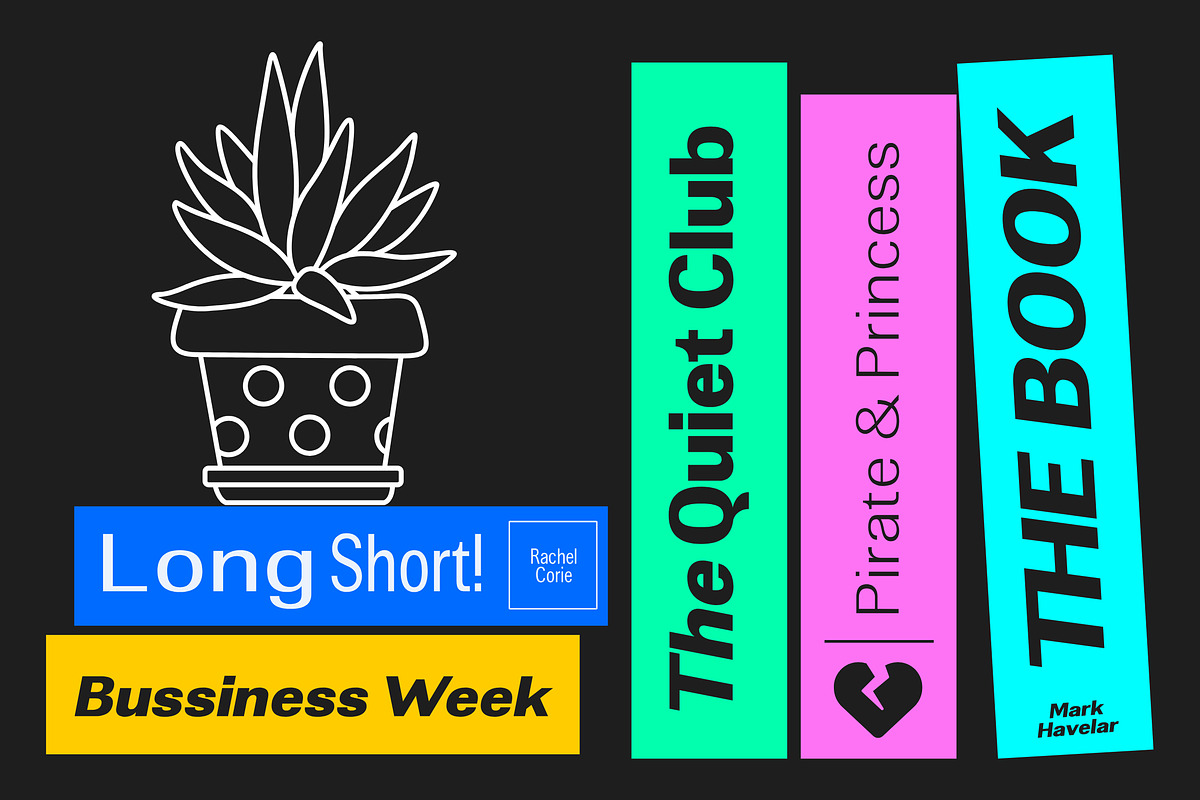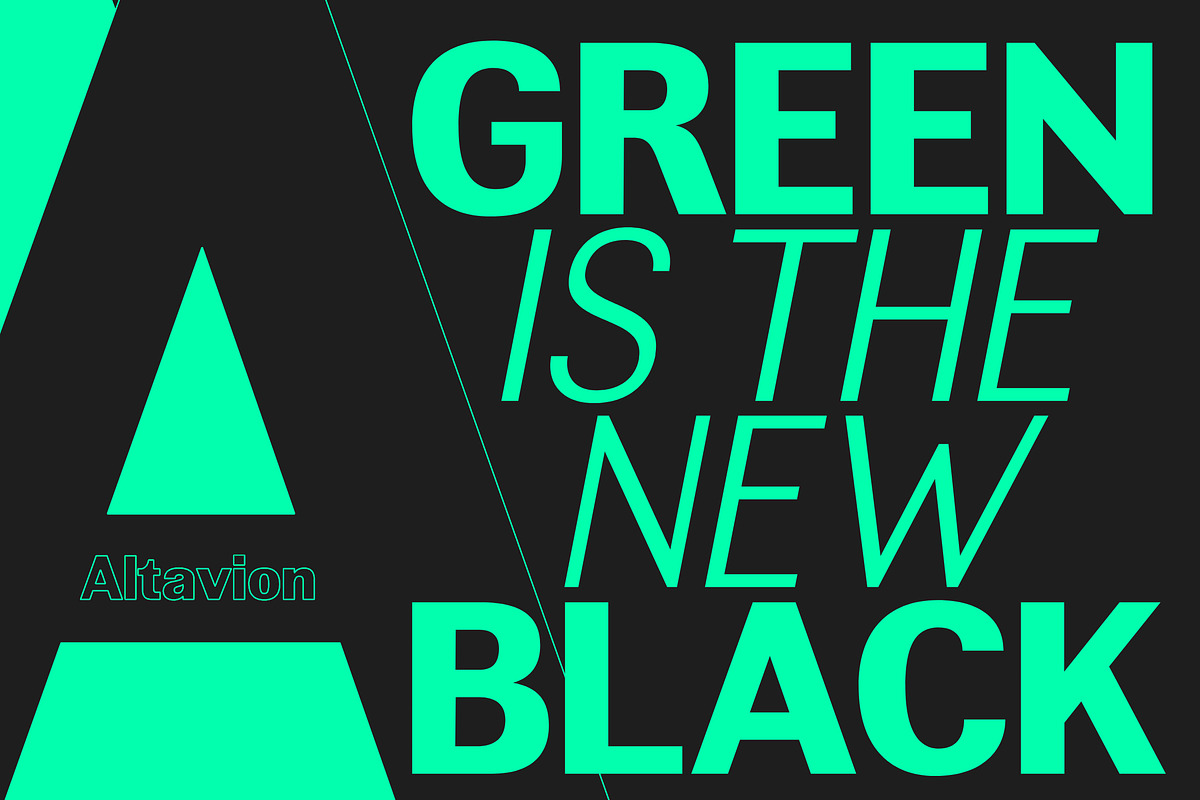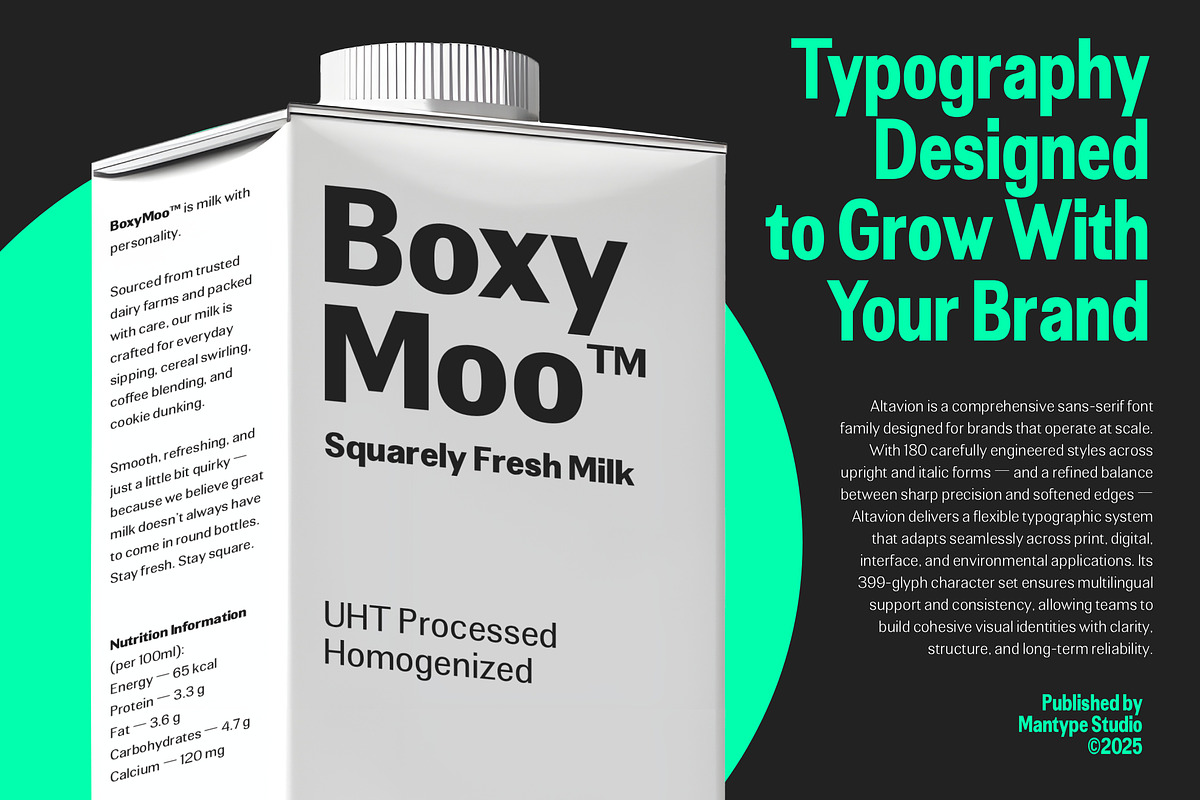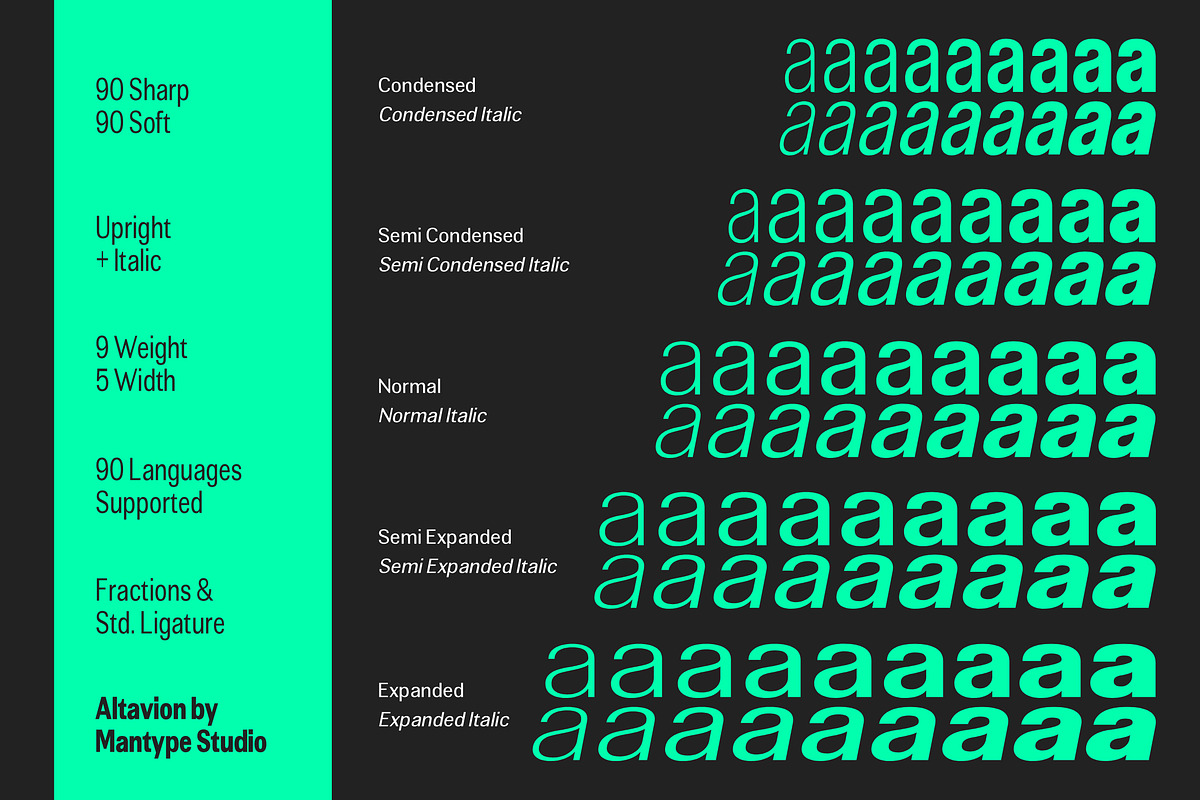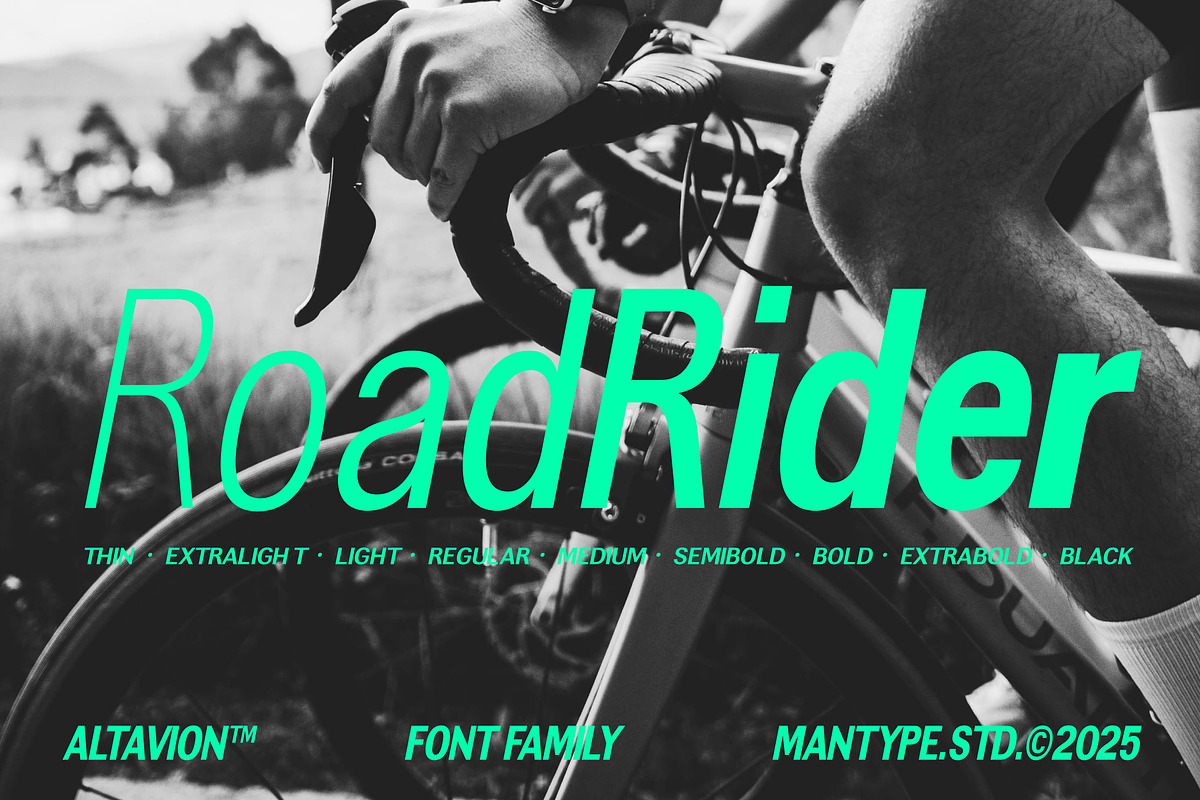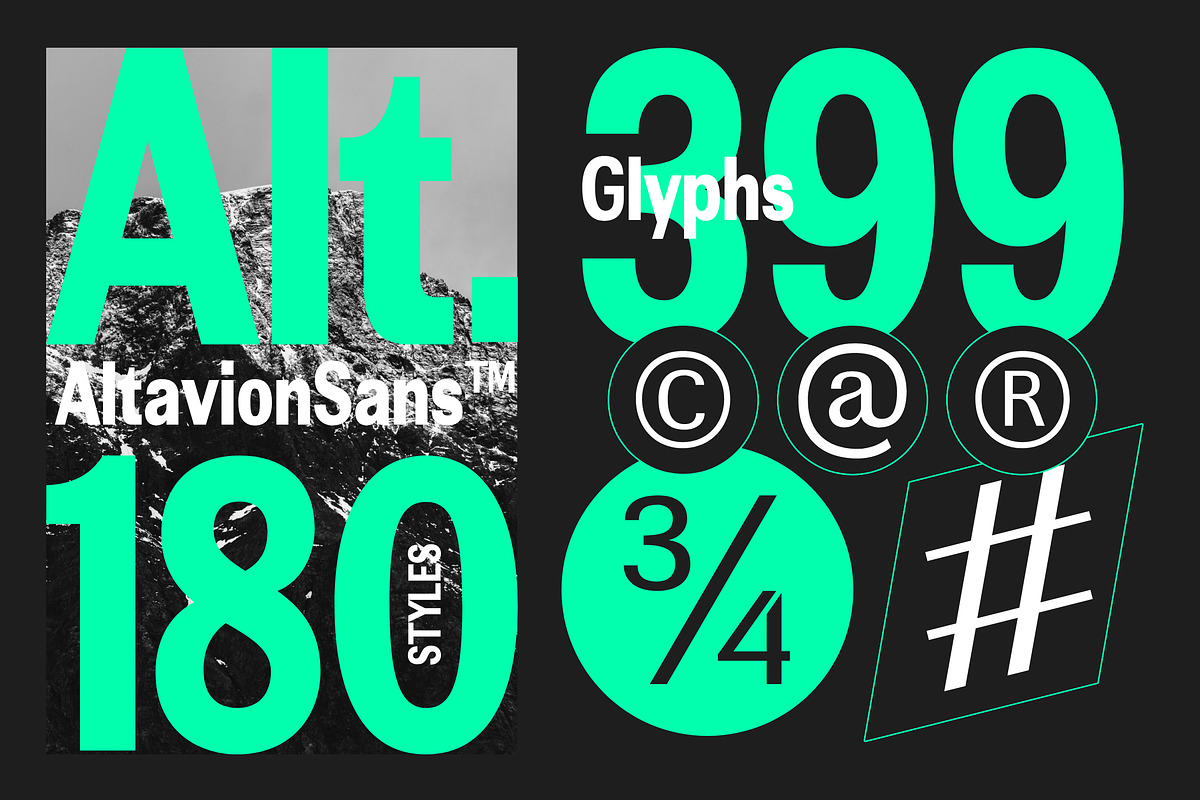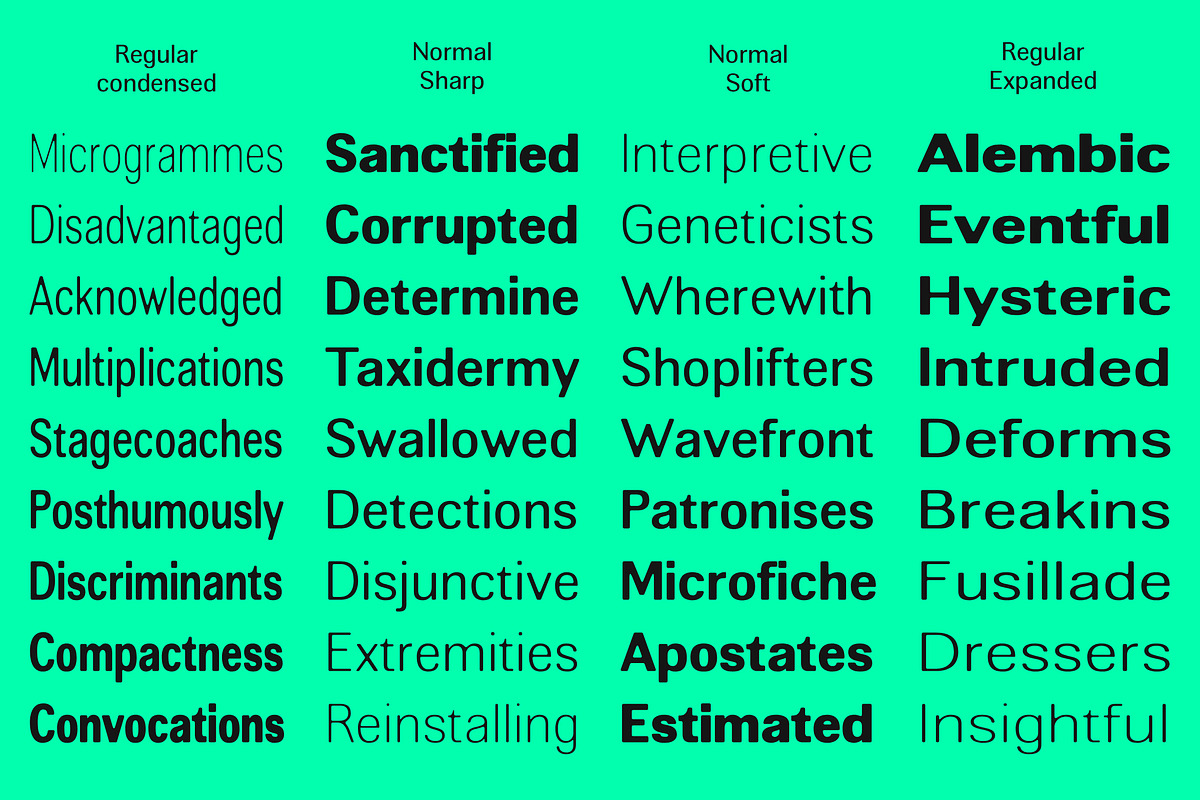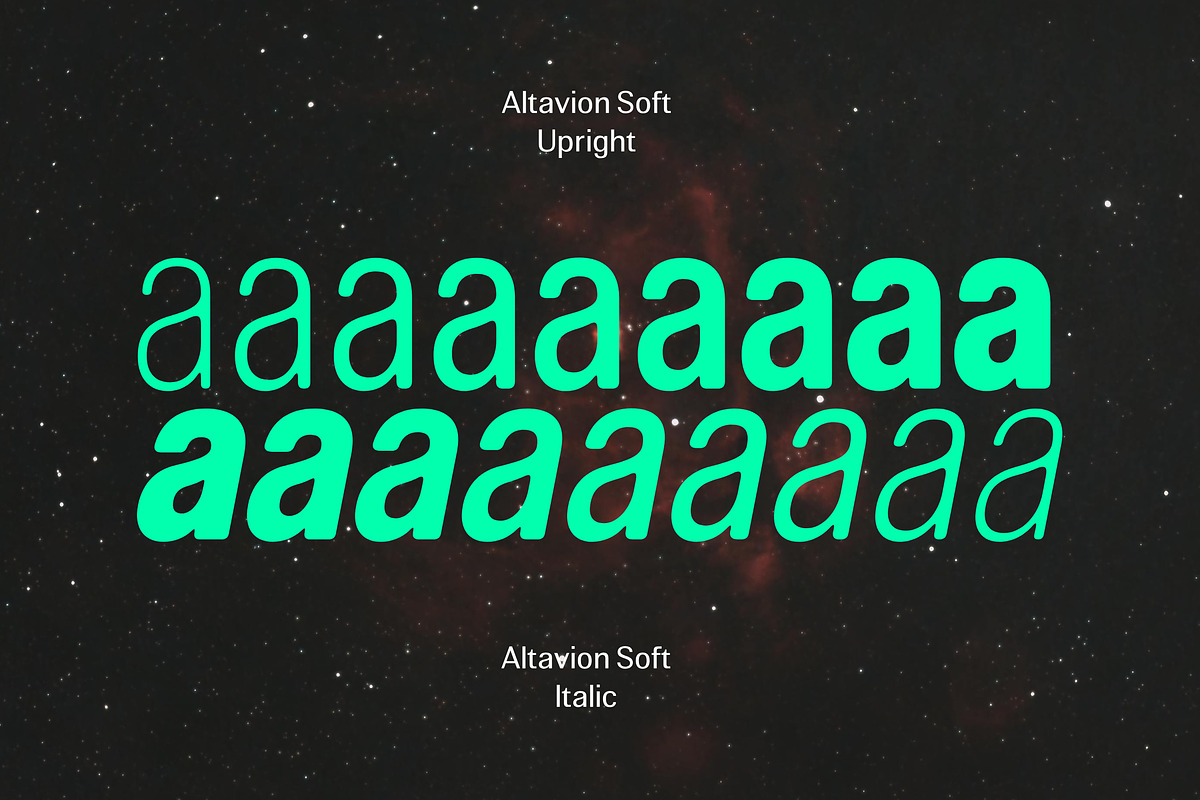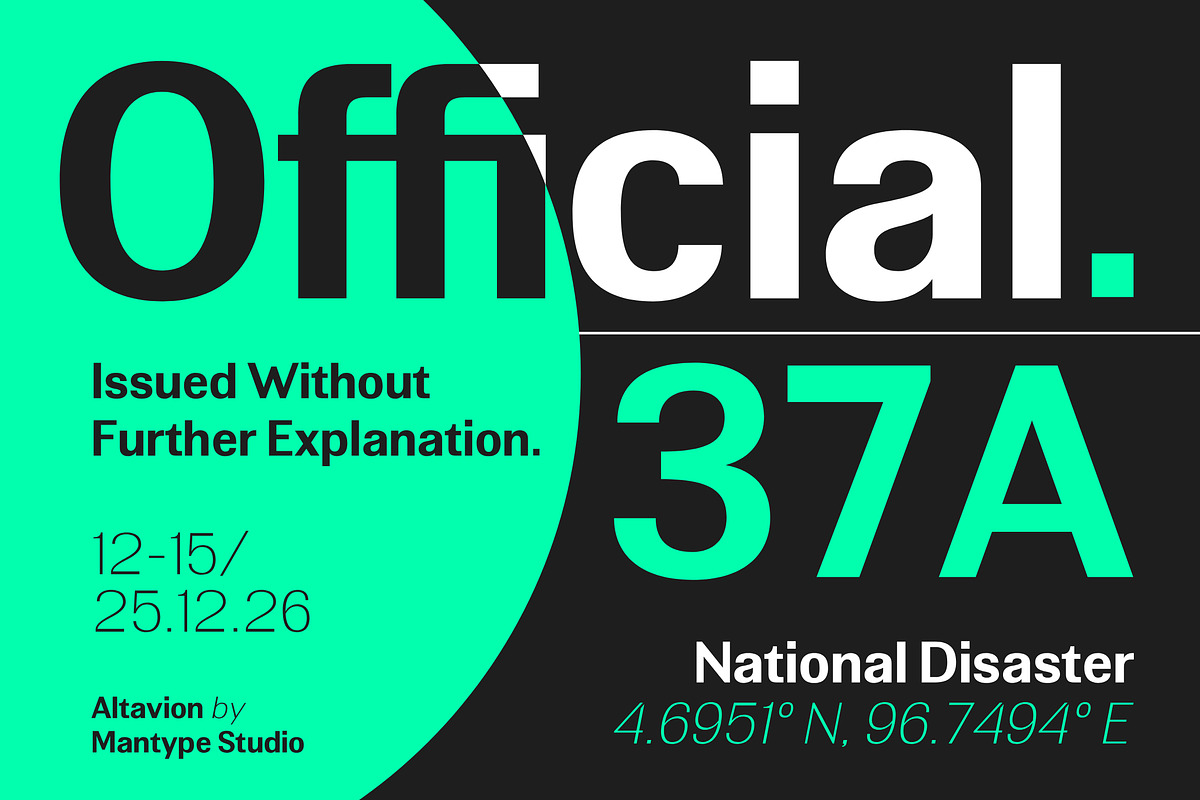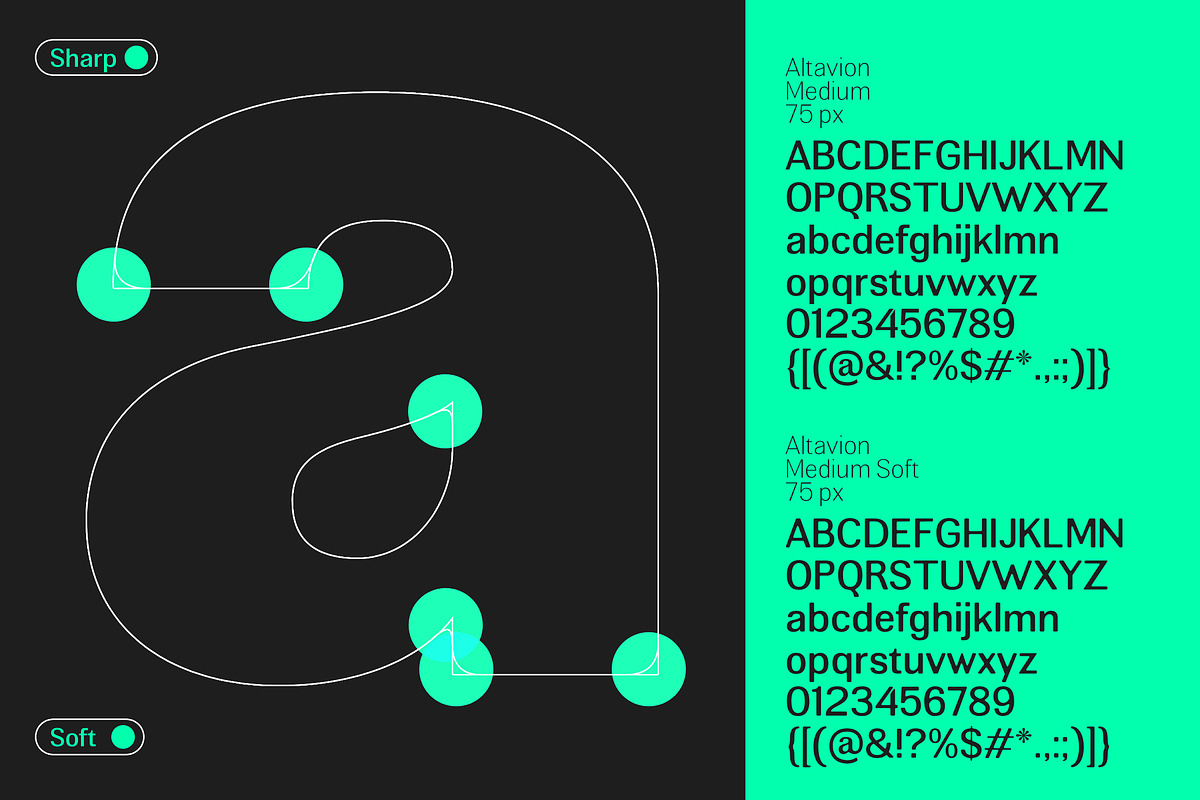
Altavion
Altavion is a modern sans-serif typeface with a bold, clean, and futuristic character. Designed to stand strong in contemporary visual spaces, Altavion combines precise proportions with balanced, smooth curves—creating an impression that is both professional and visionary. Every letterform feels solid and stable, yet remains flexible for a wide range of design needs. With an extensive family of up to 180 styles (upright and italic), Altavion offers freedom for typographic exploration, from minimal to expressive layouts. Its sharp yet soft character makes it ideal for modern branding, editorial headlines, technology, fashion, and digital interfaces. Support for 399 glyphs ensures consistency and completeness across multiple languages and design contexts. Altavion is not just a typeface—it is a visual statement of the future, clarity, and confidence.